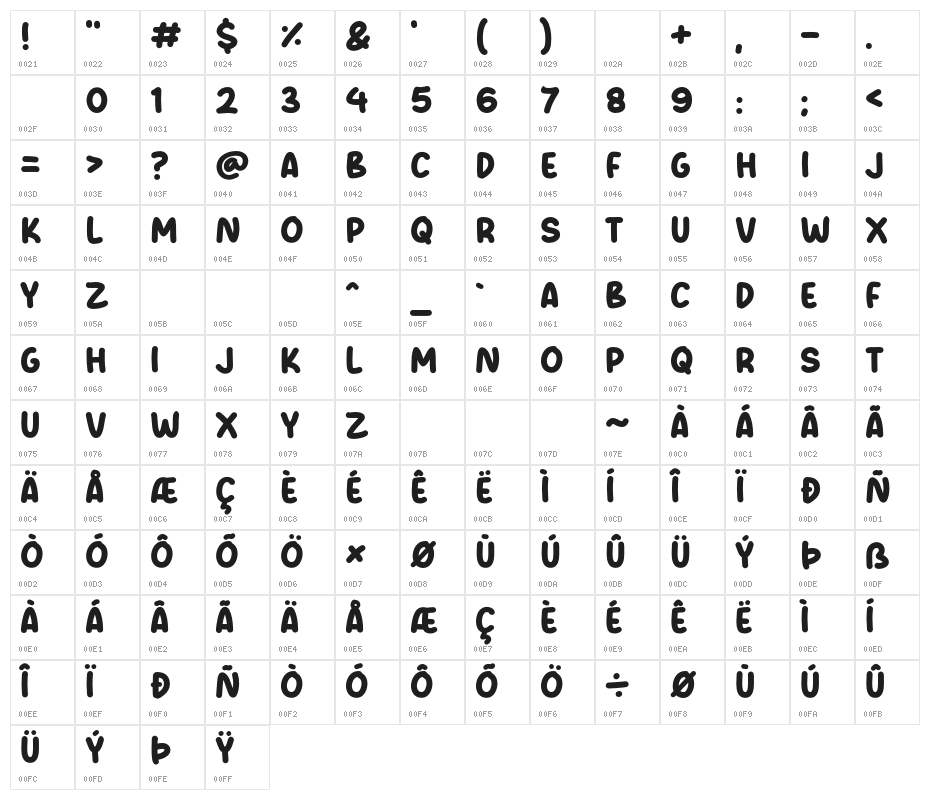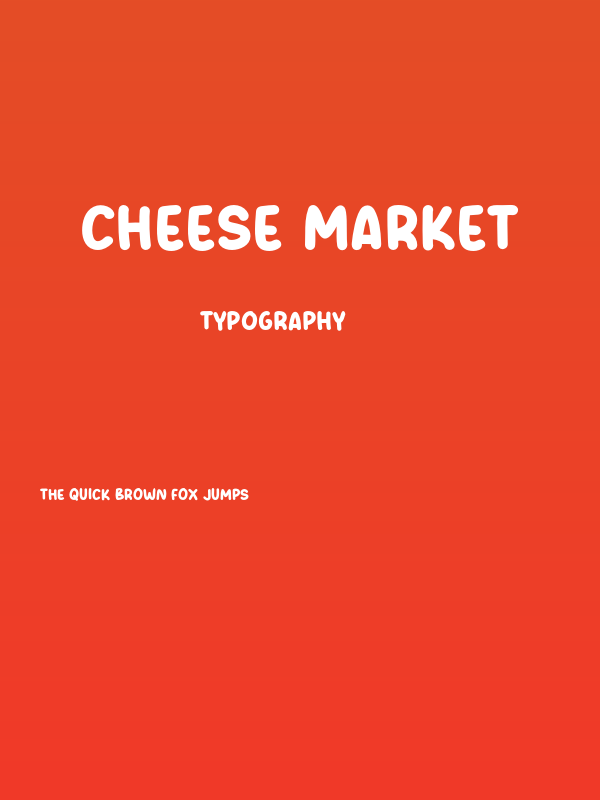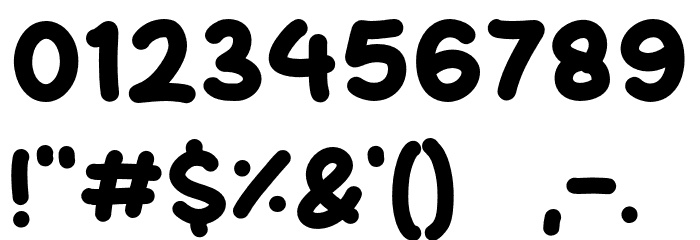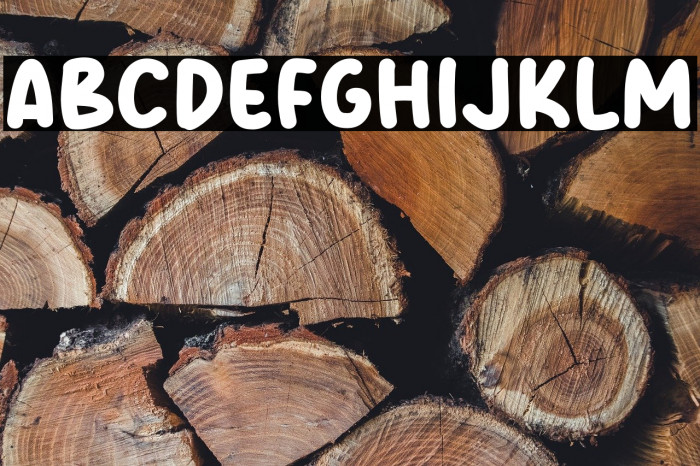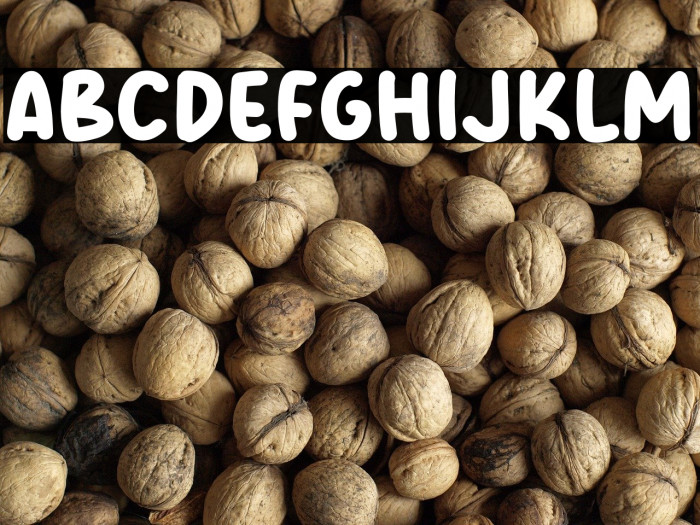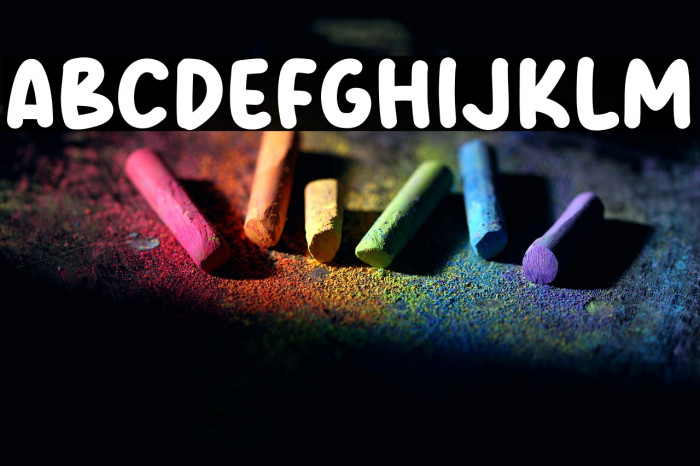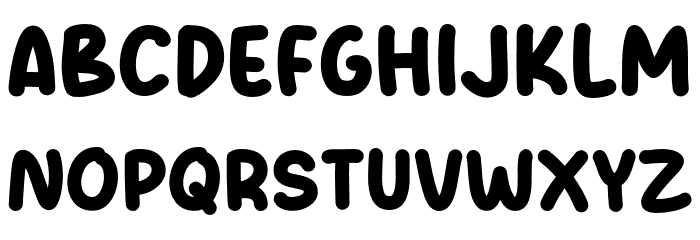
Cheese Market Font
Cheese Market Description
This playful and bold font features rounded, thick strokes that give it a friendly and approachable appearance. The characters are slightly irregular, adding a whimsical touch that makes it stand out. The uppercase and lowercase letters maintain a consistent style, with a smooth flow and rounded edges. The numerals and special characters are designed to match the overall playful aesthetic, making them suitable for a variety of creative projects. The font's boldness ensures readability while its unique style adds character and charm.
| Overall Style | Playful, Whimsical |
| Proposed Projects | Ideal for children's books, playful branding, posters, and creative packaging. |